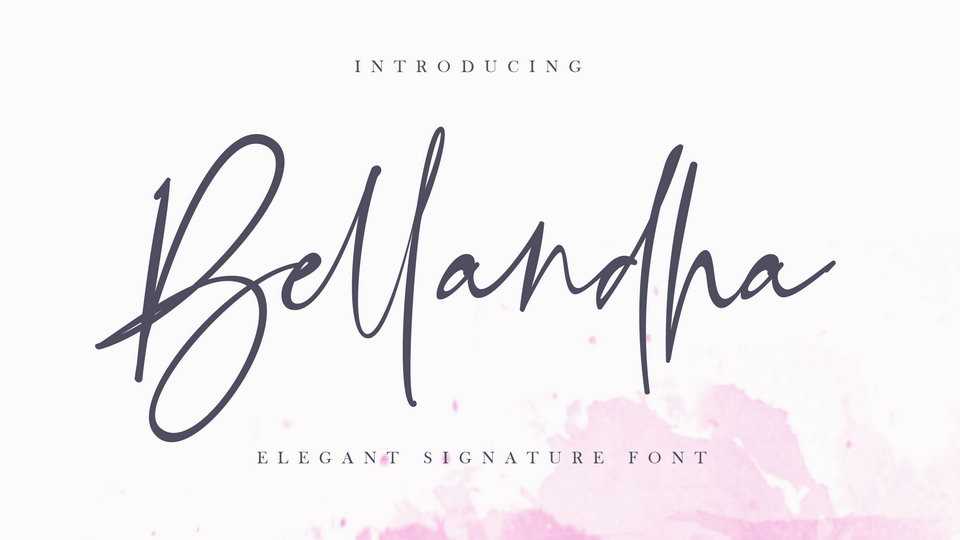
Download Belladha font, an amazing signature script, completely hand drawn and designed to perfectly create natural handwriting, which was achieved by the addition of custom ligatures.
Designer: Silverdav Studio